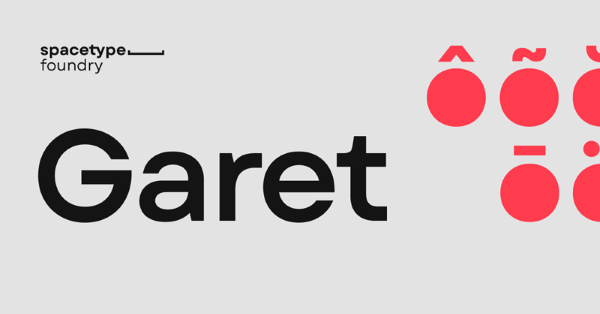
Garet Font
Garet Font is a contemporary geometric sans serif typeface distinguished by its high x-height and refined, masculine character. With clean, smooth letterforms that balance precision with subtle softness, this modern font delivers exceptional readability and versatility. Designed by Type Forward, Garet Font adapts seamlessly across diverse applications, from sleek branding and editorial layouts to digital interfaces and professional presentations.
Font Style: Sans Serif
Category: Basic, Geometric, Grotesque, Modern